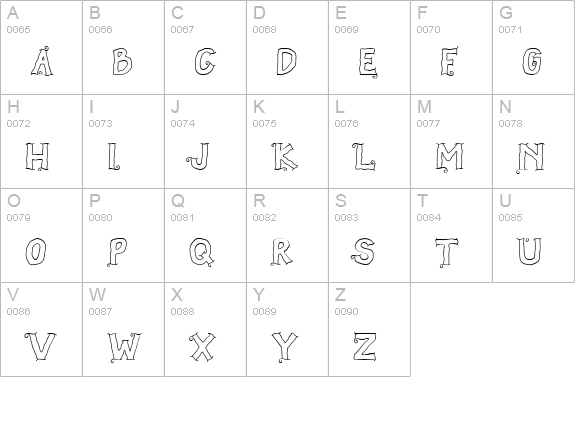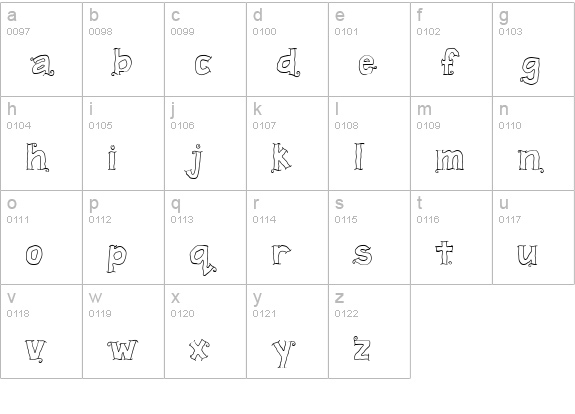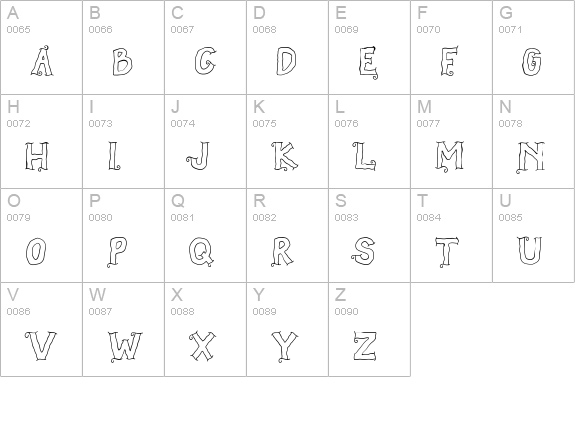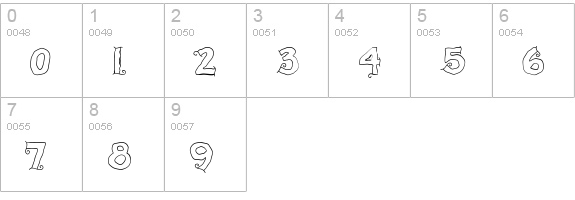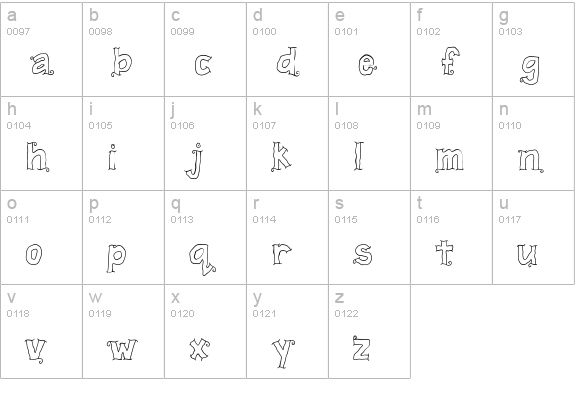
CK Crooked Classic Font Details
The CK Crooked Classic font is a unique and eye-catching typeface that exudes a sense of creativity and playfulness. With its quirky design and slightly crooked letters, this font is perfect for adding a touch of whimsy to your projects. Whether you're working on a poster, logo, or social media graphic, CK Crooked Classic will surely make your text stand out. What's even better is that this font is completely free! Yes, you read that right - you can download the CK Crooked Classic font for free at FontsMarket.com. So why wait? Elevate your designs with this fun and free font today!